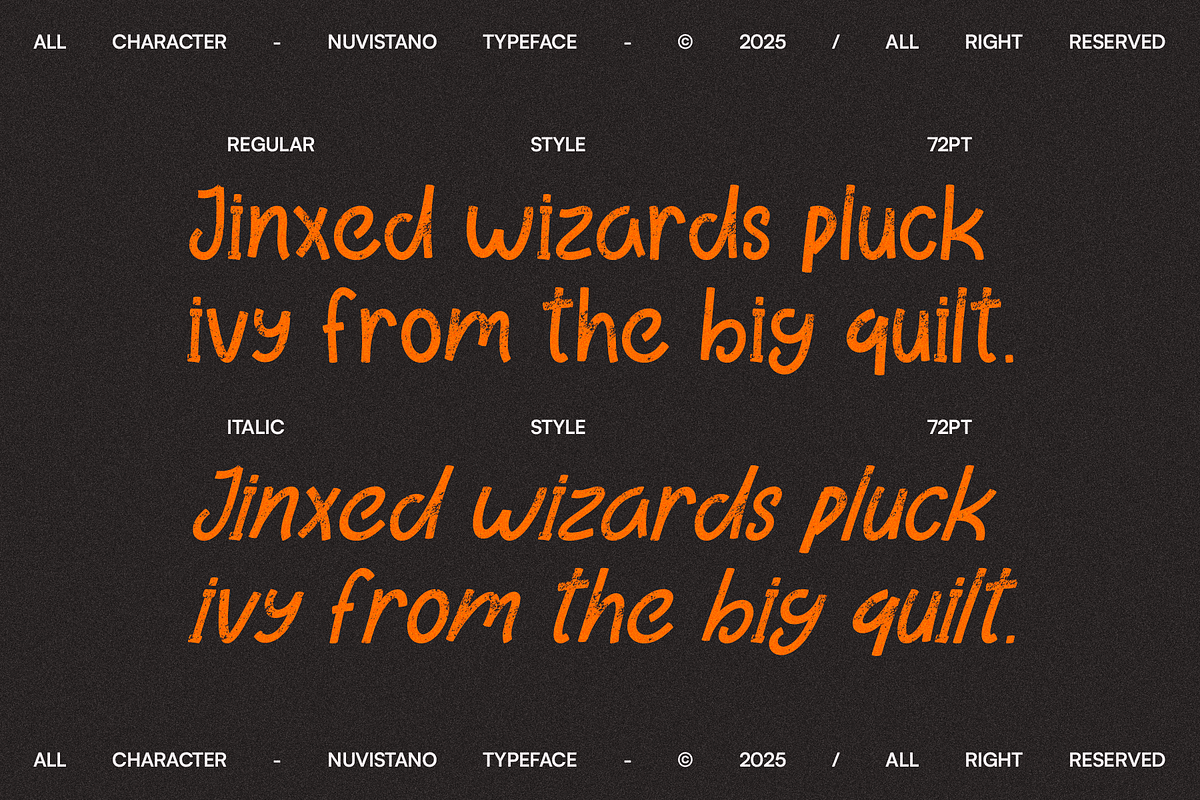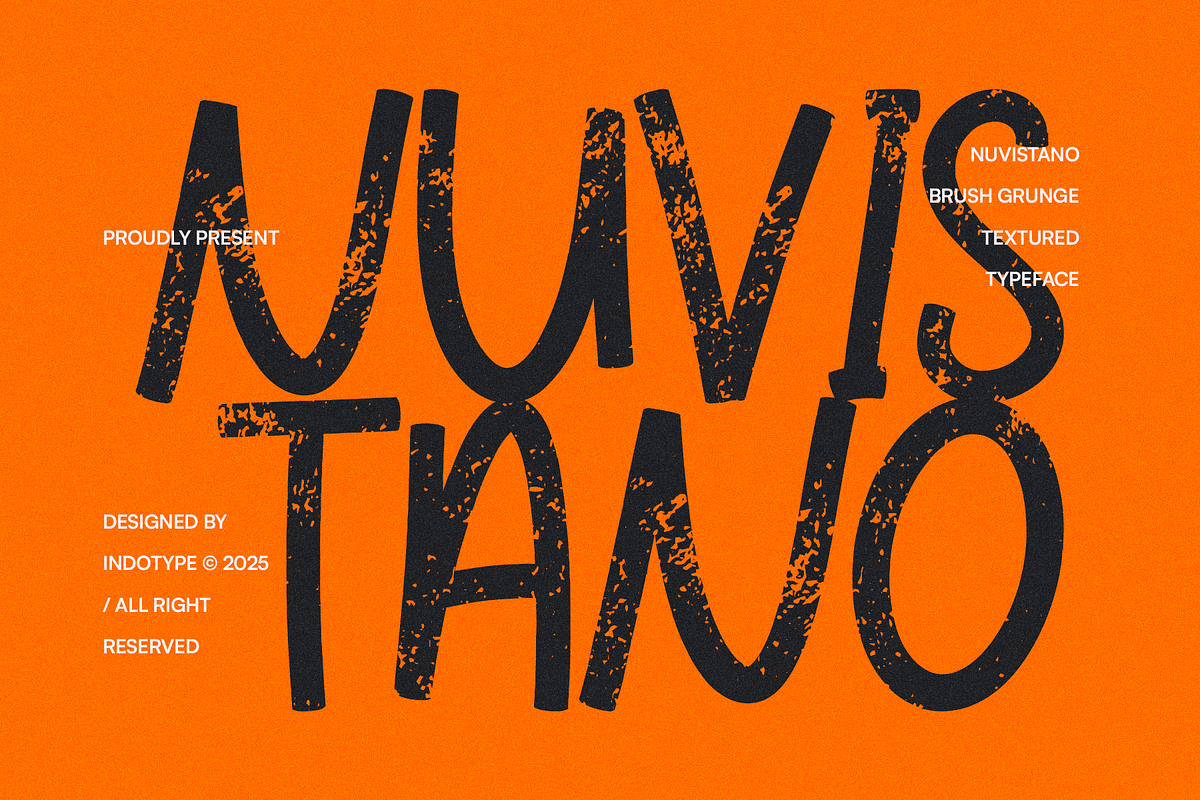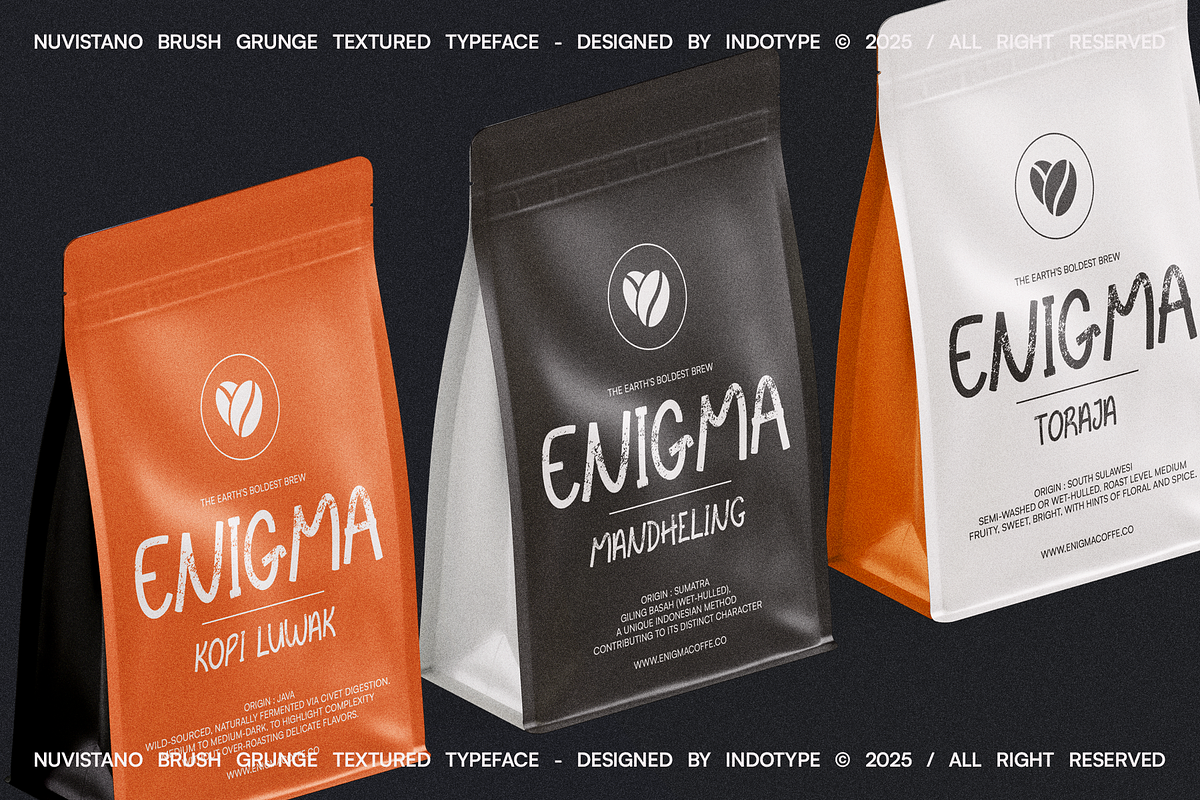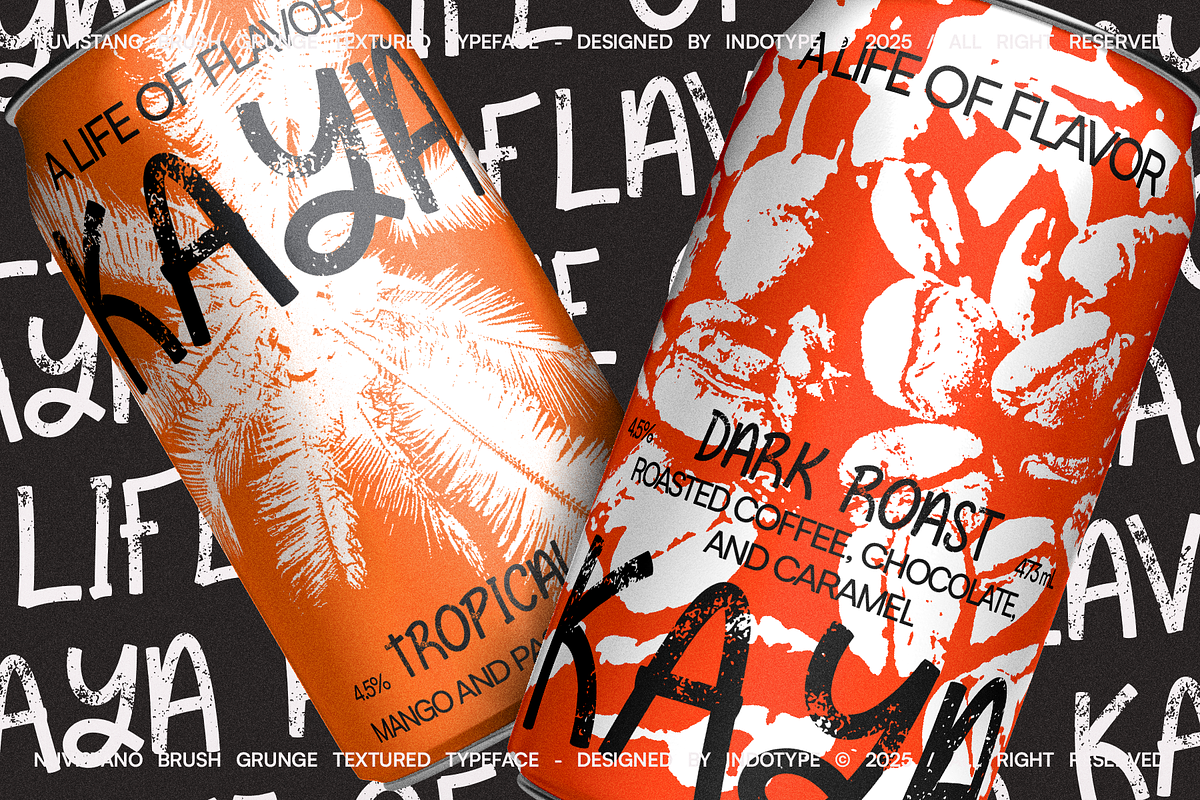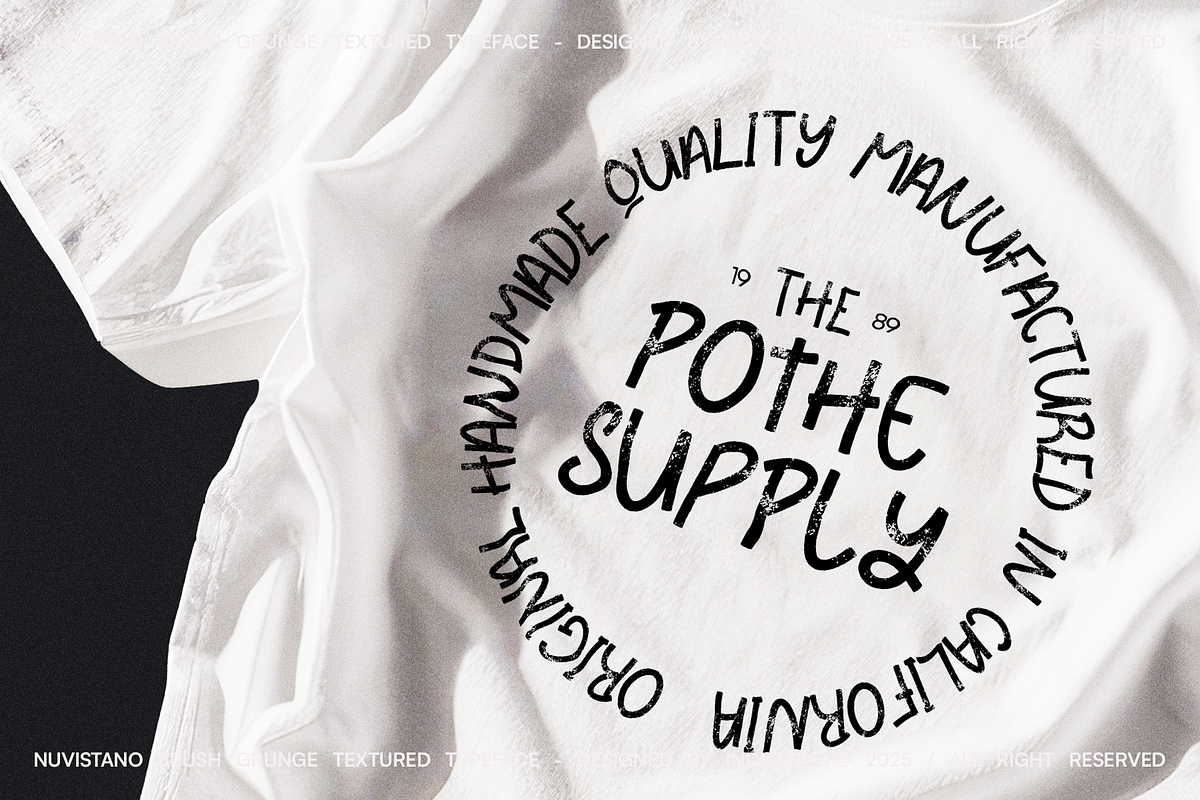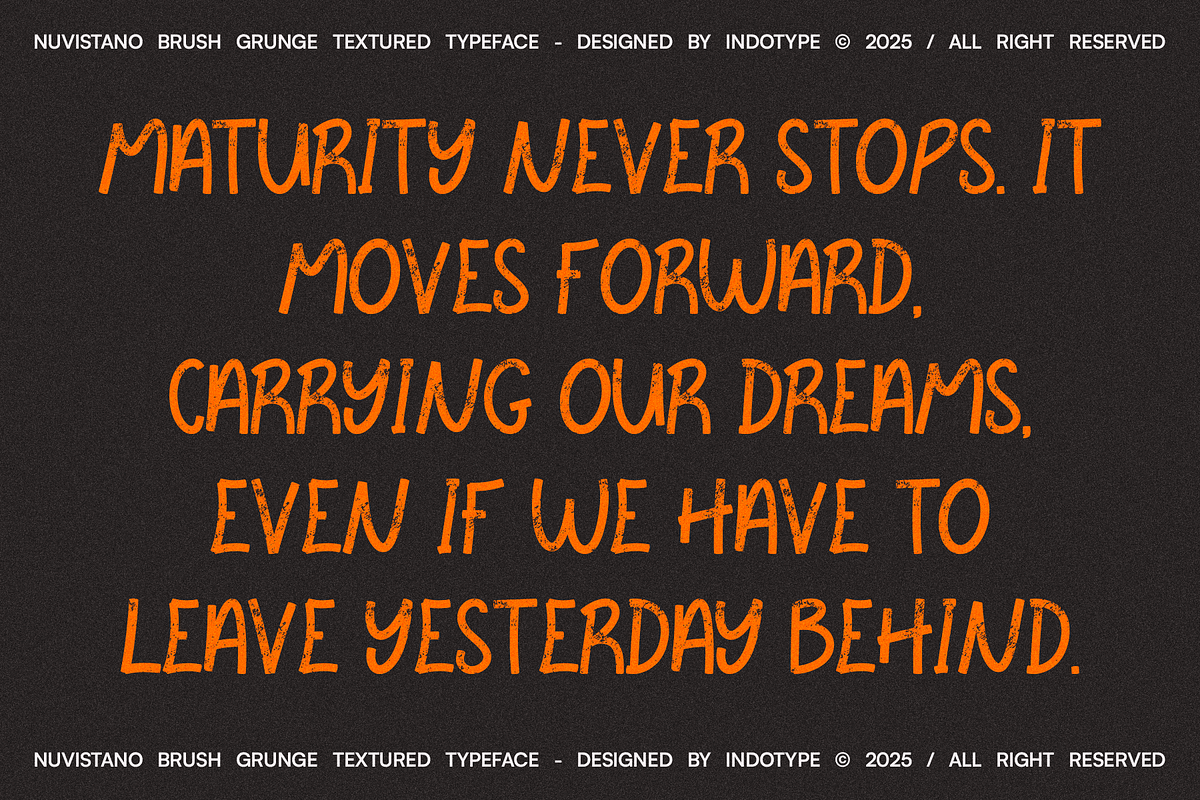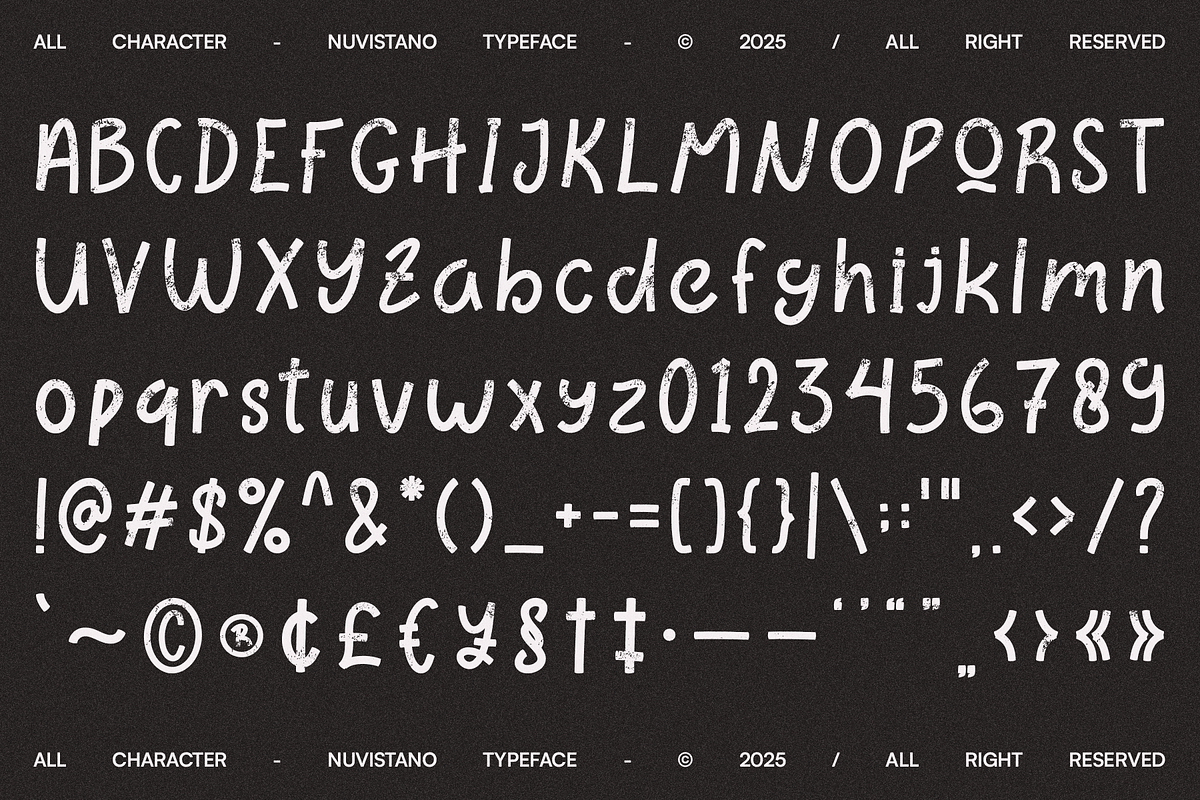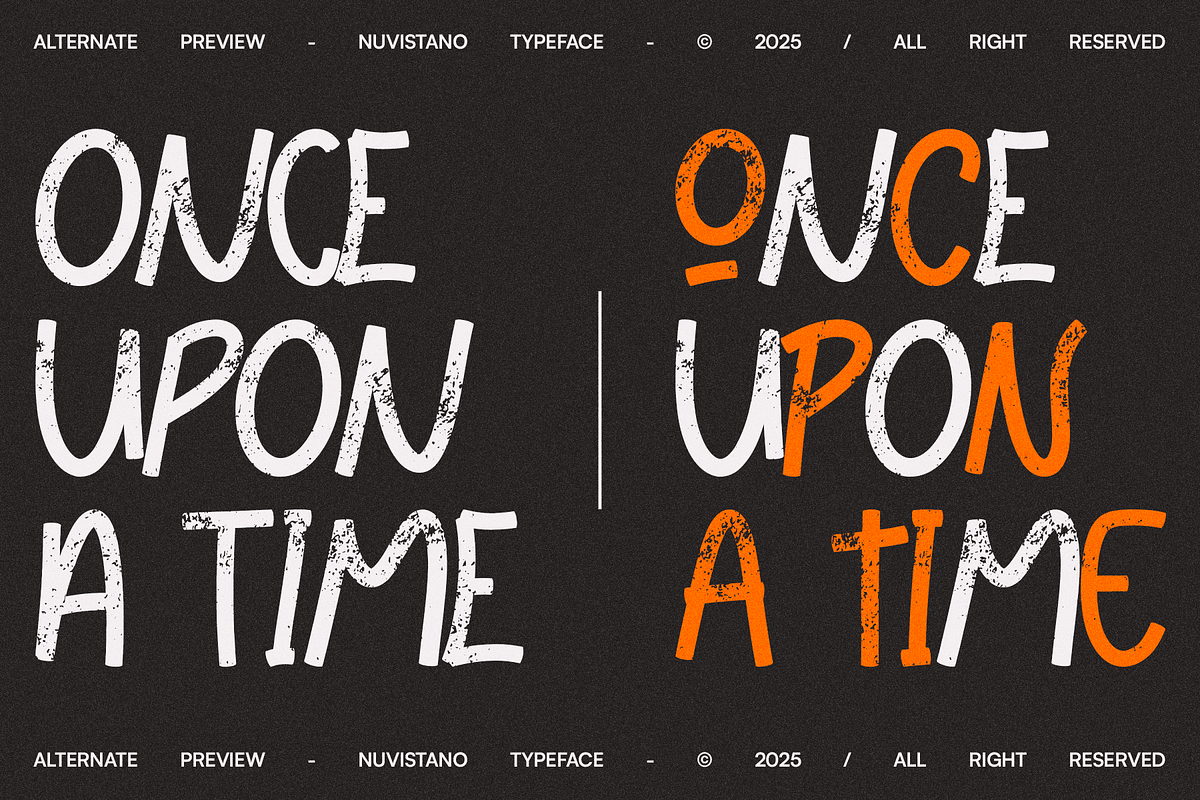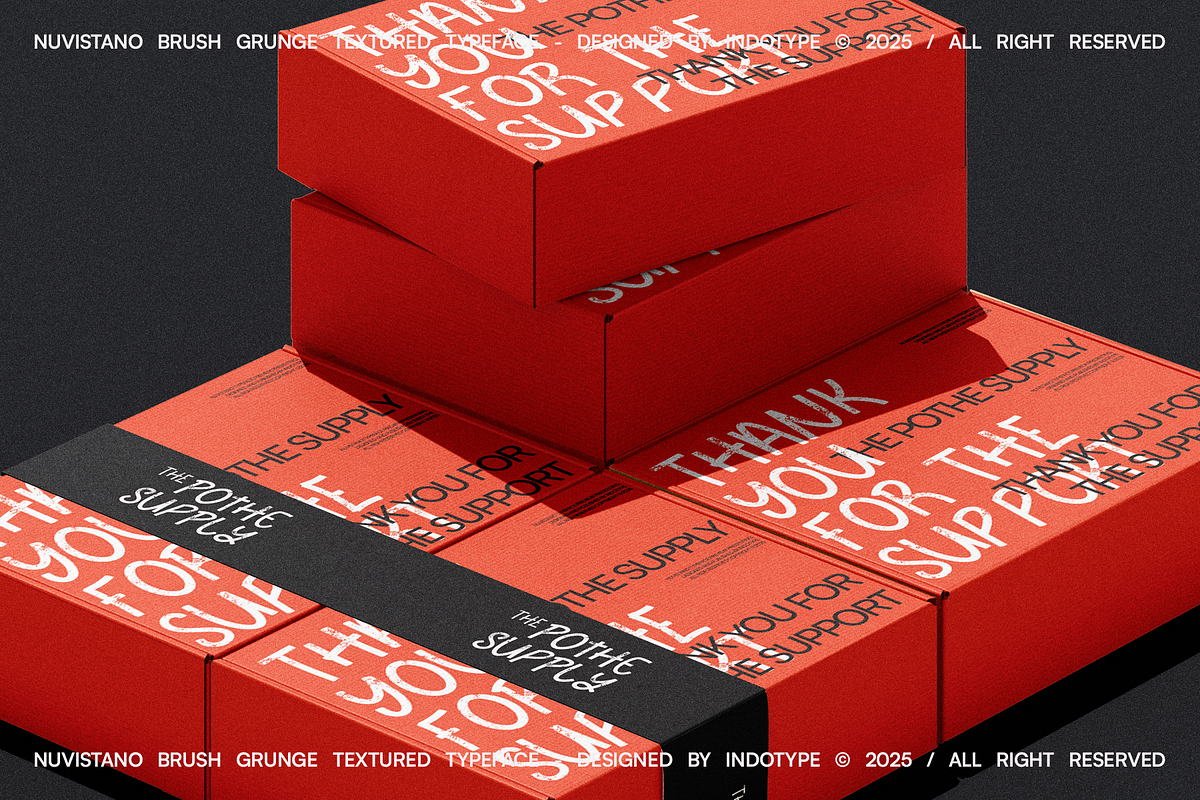
Nuvistano - Grunge Brush Font
Nuvistano is a brush grunge sans serif typeface that brings raw energy and handcrafted imperfection to your designs. Its textured strokes and organic brush details make every letter look alive — perfect for projects that need a bold, rebellious, and authentic feel. Designed by Indotype (2025), Nuvistano combines rough brush texture with solid sans serif structure, creating a balanced harmony between chaos and clarity. The worn edges, paint splatters, and expressive flow give it a distinctive handmade touch — making it ideal for vintage posters, streetwear branding, music album covers, and creative headlines. With its natural irregularity and dynamic presence, Nuvistano captures the true spirit of grunge artistry — bold, untamed, and full of character.